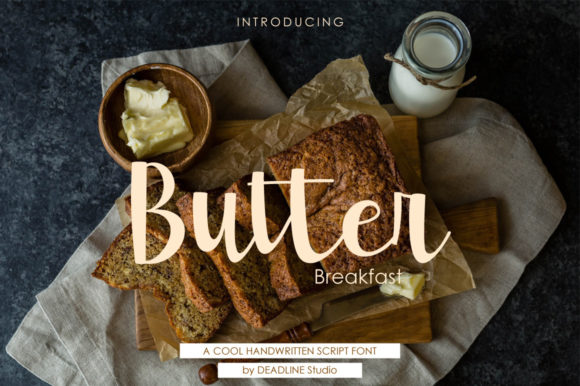
The Butter Font: A Charming and Elegant Design Essential
I’ll never forget the design project that led me to discover the Butter font. I was working on a branding project for a boutique bakery, and I needed a font that would convey warmth, elegance, and a touch of whimsy. After hours of scrolling through font libraries, I stumbled upon Butter, and it instantly stole my heart. The charming, cursive script with its flowing swashes and intricate details was perfect for the bakery’s logo and marketing materials.
- ✅ Elegant and charming design perfect for luxury brands, weddings, and creative projects
- 🌈 Highly versatile and adaptable to various design contexts
- ⚠️ Some swashes may not work well in all design platforms or may require manual adjustments
- 🤯 Steep learning curve for users unfamiliar with OpenType features and glyphs
The Designer Inspiration Behind Butter Font
Although I couldn’t find any specific information on the designer behind Butter font, I imagine that they were inspired by traditional calligraphy and elegant typography. Perhaps they wanted to create a font that would evoke a sense of luxury, sophistication, and whimsy. Whatever the inspiration, the result is a beautiful, charming font that’s perfect for a wide range of design projects.
A: PUA (Private Use Area) encoding allows font designers to include additional glyphs and swashes that can be accessed easily by users. This means that you can access a wide range of design elements, from flourishes to ligatures, without having to switch fonts or use external design tools.
Q: Is Butter font suitable for body text?
A: While Butter font is beautiful and elegant, it may not be the best choice for body text due to its script nature and intricate details. It’s better suited for headlines, titles, and short paragraphs where you want to make a statement.